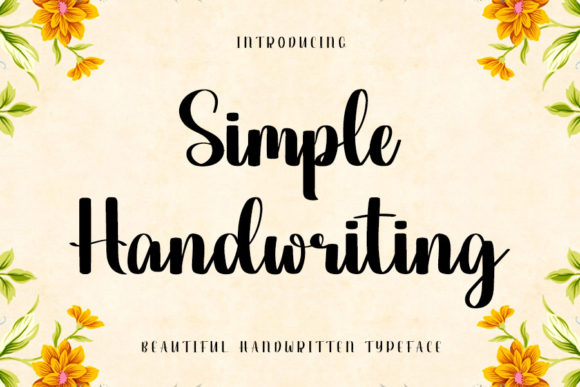
Embrace the charm and elegance of handwritten expression with Simple Handwriting Font, a captivating script font family meticulously crafted by Kongsi.Co. With its graceful curves and flowing lines, this exquisite font will add a touch of sophistication and warmth to your creative projects.
Unleash your creativity with Simple Handwriting Font, the perfect choice for crafting personalized Christmas labels that exude a heartfelt and festive charm. Design custom labels that capture the essence of the holiday season, adorned with beautiful handwritten greetings and warm wishes. Let your loved ones feel the sincerity and thoughtfulness behind each gift, wrapped with a touch of elegance.
Step into a world of endless possibilities with Simple Handwriting Font. Create captivating product packaging that captivates customers with its unique and eye-catching design. Elevate your branding projects with a touch of authenticity and charm that sets you apart from the ordinary. This versatile font family lends itself seamlessly to magazine covers, adding a touch of sophistication and allure that draws readers in.
Make a statement on social media with Simple Handwriting Font, capturing the attention of your audience with visually stunning posts and captivating stories. Let your words dance across the screen, leaving a lasting impression that resonates with your followers. From heartfelt wedding invitations to heartfelt expressions of love, Simple Handwriting Font adds a touch of elegance and grace to every occasion.
With Simple Handwriting Font, transform ordinary words into works of art. Its expressive nature lends itself beautifully to creating stunning overlays, where words and images harmoniously blend to create a captivating visual experience. Unleash your imagination and let your creativity soar as you design breathtaking visuals that leave a lasting impact.